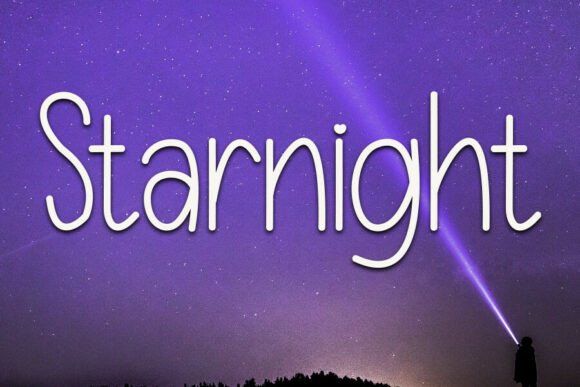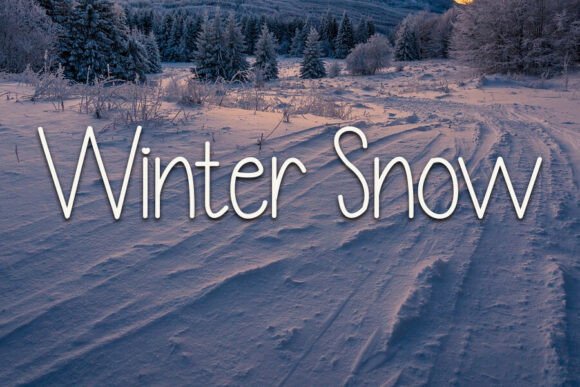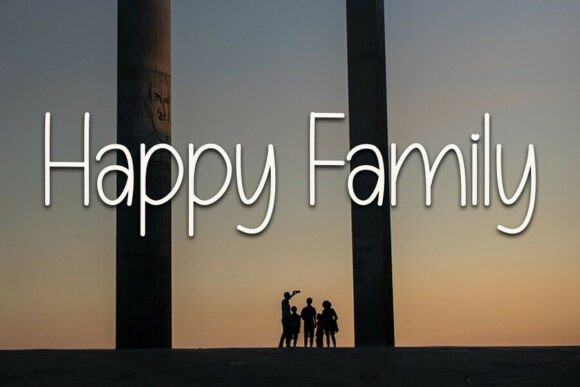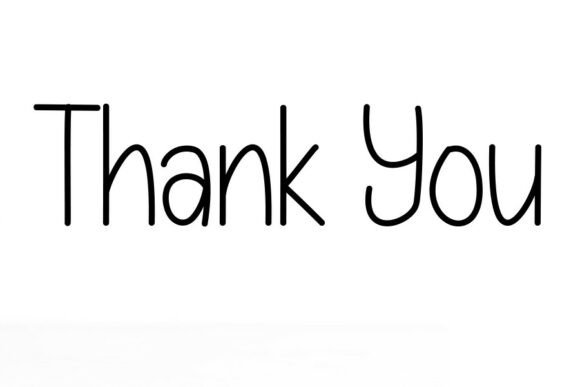
When Fonts Become Family Members
Have you ever stared at a blank page, wondering how to bring your creative vision to life? For many designers, the right font can be the missing piece that turns a good idea into a great one. I still remember the moment I fell in love with Boyfriend Font – it was like stumbling upon a handwritten note from a close friend. The tall, sweet letters seemed to dance across the page, exuding a friendly and casual charm that instantly put me at ease.
Boyfriend Font is more than just a pretty face; it’s a versatile tool designed to add a handcrafted touch to your designs. Perfect for bakery branding, food blogs, or birthday invites, this font is a valuable addition to any designer’s toolkit. With its PUA encoding, you can easily access all the stylistic features and extras, making it a breeze to use.
Boyfriend Font Key Features
- Unique Characteristics: Boyfriend Font features a modern, clean design with rounded edges and a friendly feel, making it ideal for body text and display use.
Designer Review: Boyfriend Font
Overall, I think the Boyfriend Font has some great qualities that make it a great choice for certain designs. ✨ One of the things I like is how it captures the casual, laid-back vibe of a relationship – it’s perfect for social media posts, blogs, or any content that’s meant to be friendly and approachable. ✨ I also appreciate how it comes in a variety of weights and styles, making it easy to mix and match to suit your needs.
However, there are a few limitations to consider. ⚠️ One of the main drawbacks is that the font can feel a bit too playful or informal for certain contexts. For example, if you’re creating a professional website or a formal document, Boyfriend Font might not be the best choice. ⚠️ Additionally, the font’s quirky character can sometimes feel a bit inconsistent or uneven – this might be a challenge for designers who value precision and perfection.
Pros and Cons:
- ✨ Friendly, approachable vibe
- ✨ Variety of weights and styles
- ⚠️ Can feel too playful or informal
- ⚠️ Inconsistent character
Overall, I think the Boyfriend Font is a great choice for designers who are looking for a fun, casual font that’s perfect for social media or blog posts. While it may not be the best choice for every context, it’s definitely worth considering for the right project. With a bit of care and attention to detail, you can use the Boyfriend Font to create some truly unique and engaging designs.
Boyfriend Font: A Practical Application Guide
The Boyfriend Font is a playful and casual font that’s perfect for social media graphics, blog posts, and marketing materials. To get the most out of it, use it sparingly to add a touch of personality to your designs. Common use cases include:
- Social media posts and stories
- Blog post headings and subheadings
- Marketing materials and flyers